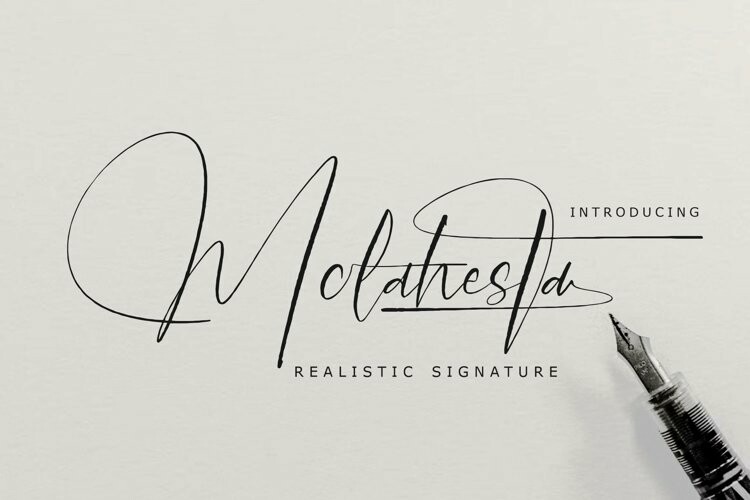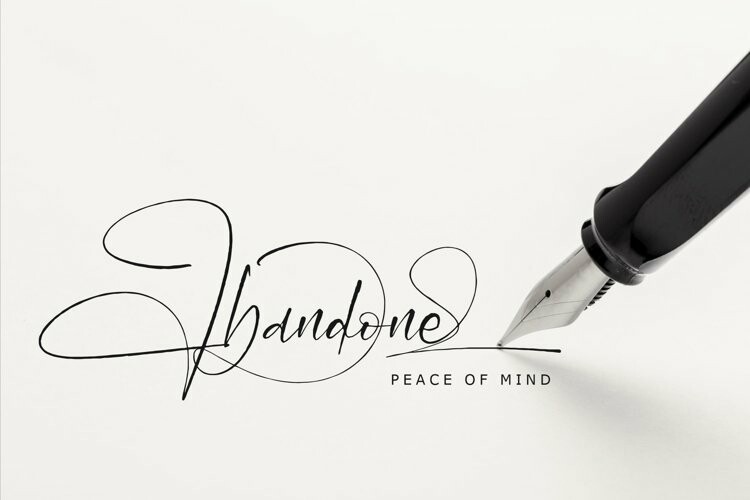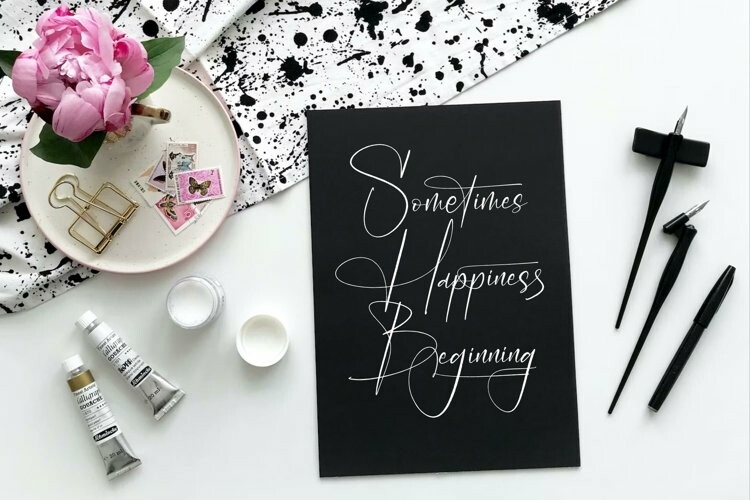
Molahesta Font
Proudly present Molahesta – Realistic Signature , created by Storytype,
A luxury script that has own unique style & modern look.
This typeface is perfect for an elegant & luxury logo, book or movie title design, fashion brand, magazine, clothes, lettering, quotes, and so much more.